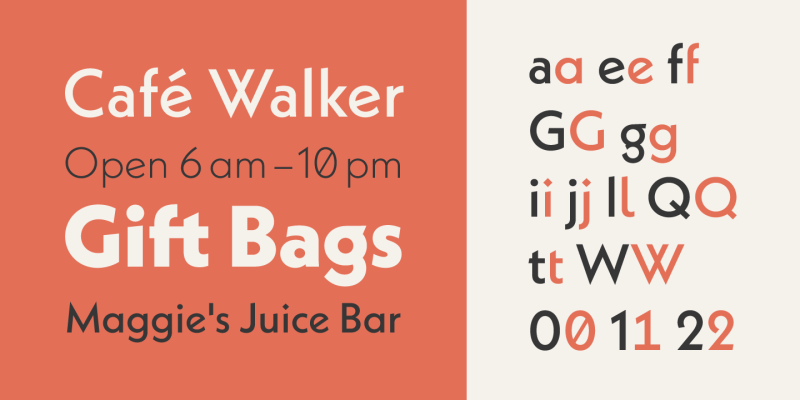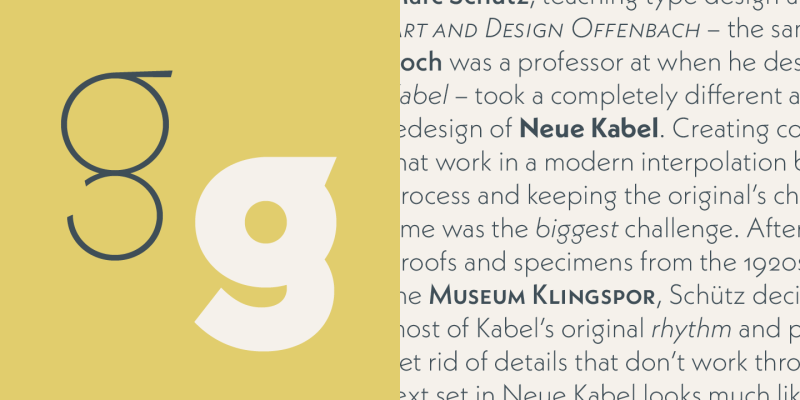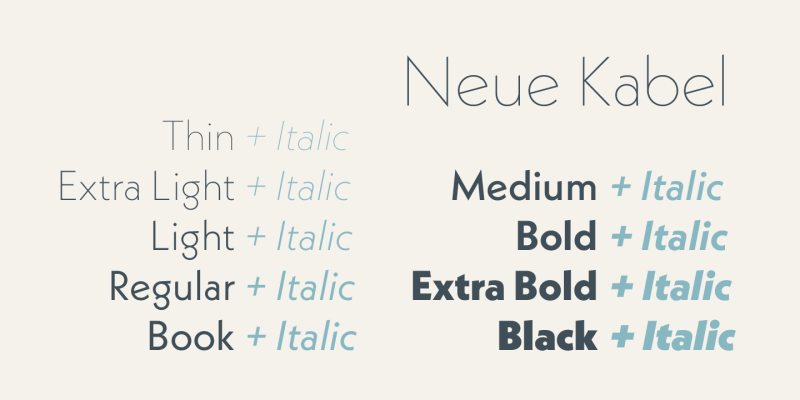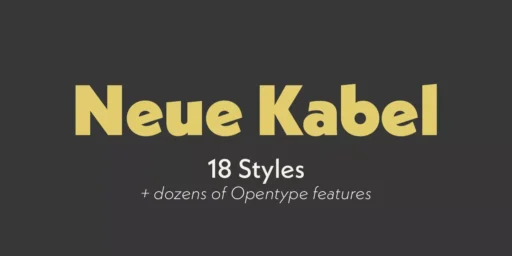
Neue Kabel Font
Neue Kabel is a modern variation of the classic font Kabel, which originated with German typographer Rudolf Koch in the 1920s. Marc Schütz and Christian Schwartz, with the help of Monotype, presented the new version to inherit Kabel’s timeless appeal but be more digital and flexible for modern design purposes.
Neue Kabel font focuses on the particular geometric forms and graceful curves that turned the original Kabel into a famous typeface. However, Schütz and Schwartz introduced a few modifications to make it more appropriate for contemporary typographic use.
Neue Kabel’s main improvements include its modified weights and styles array, which widens designers’ possibilities and applications of typographic compositions. Neue Kabel has a wide selection of options for many design needs, from delicate Thin to bold Black and their respective italics.
Besides, Neue Kabel has improved spacing and kerning, guaranteeing perfect readability and aesthetic unity in various text sizes and environments. The alterations made by Schütz and Schwartz enhance the appearance of the text, which is more polished and balanced, and, therefore, the typographic experience as a whole.
New Kabel uses better language support and OpenType features such as alternate characters, ligatures, and stylistic sets. These characteristics offer typographers extra means of artistic expression, permitting them to refine and modify their typography designs easily.
In general, Neue Kabel achieves the perfect harmony of tradition and modernity, honoring Rudolf Koch’s Kabel’s established principles while adding some fashionable elements necessary for modern design. With its beautiful shapes, many weights and styles, and useful attributes, it’s a versatile font for all kinds of design projects, from branding and editorial design to web and interface design.